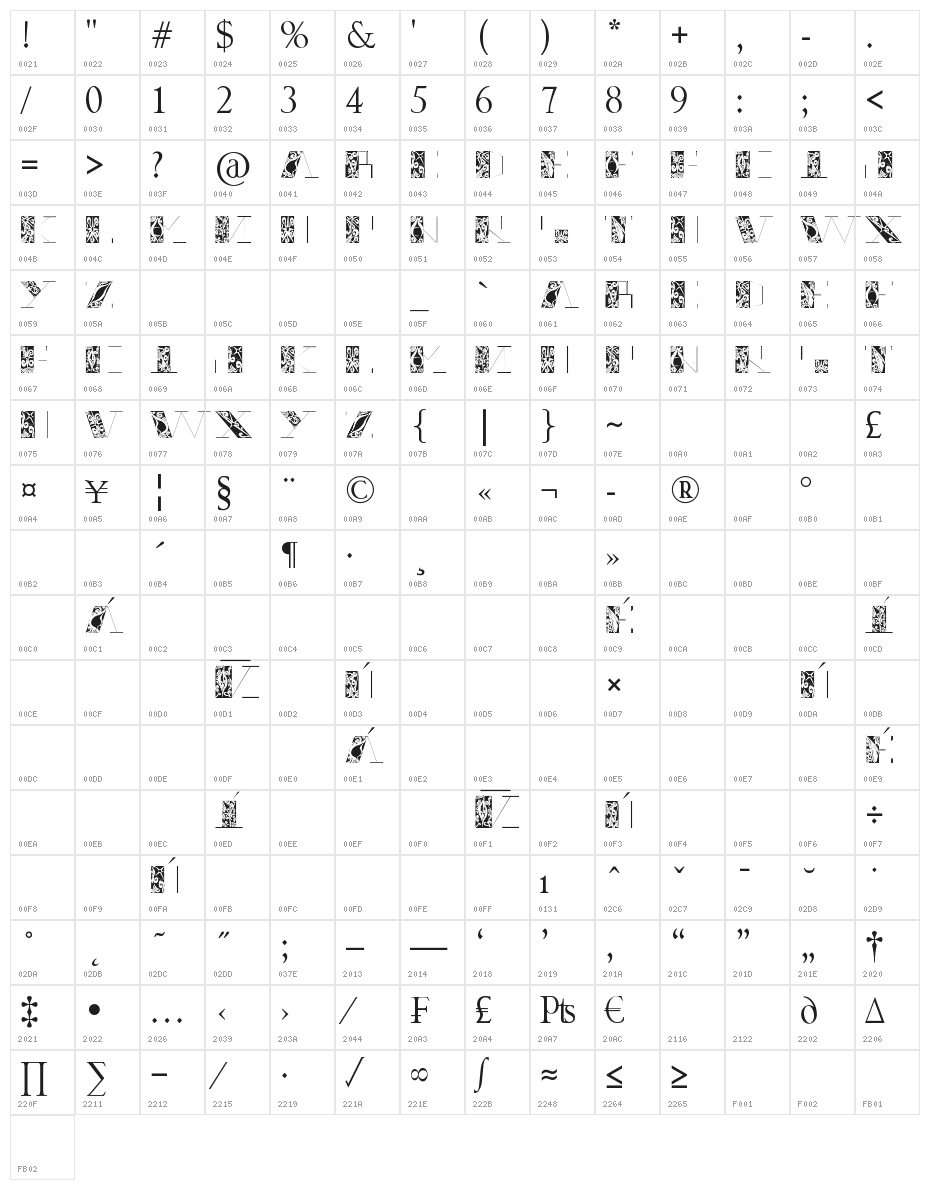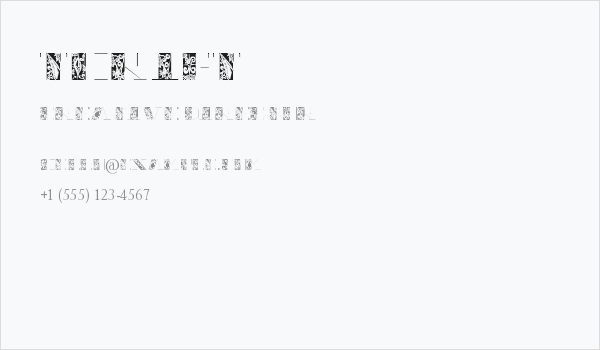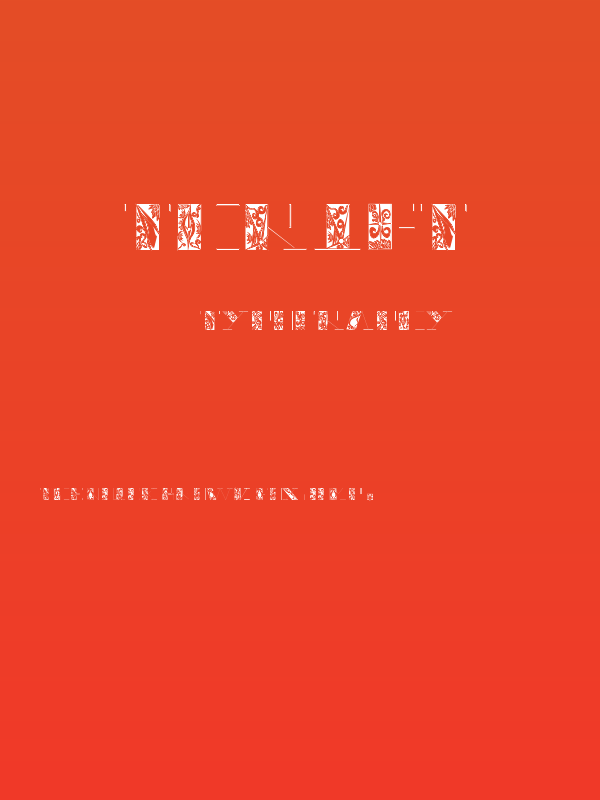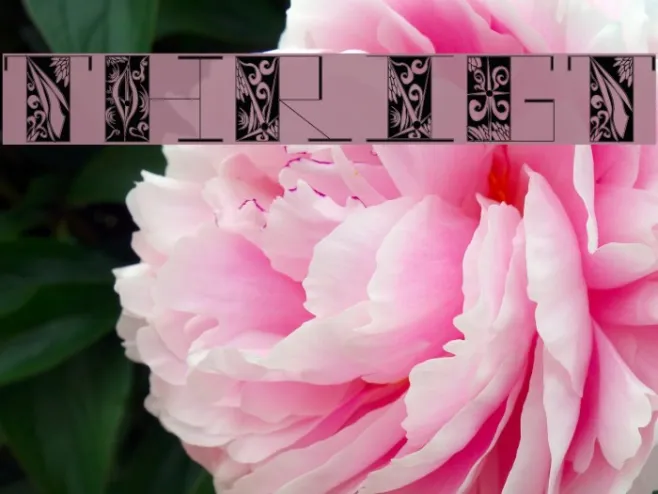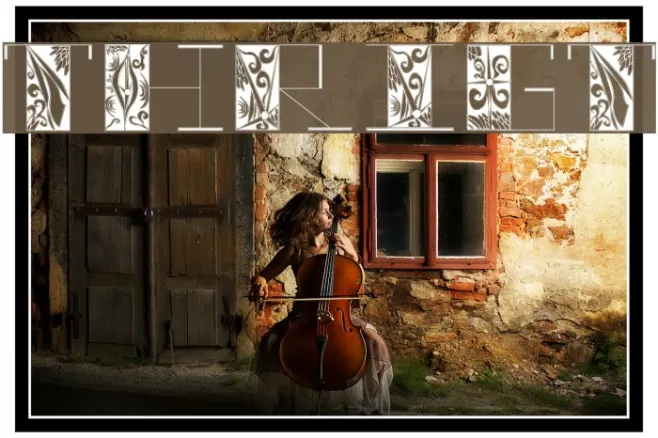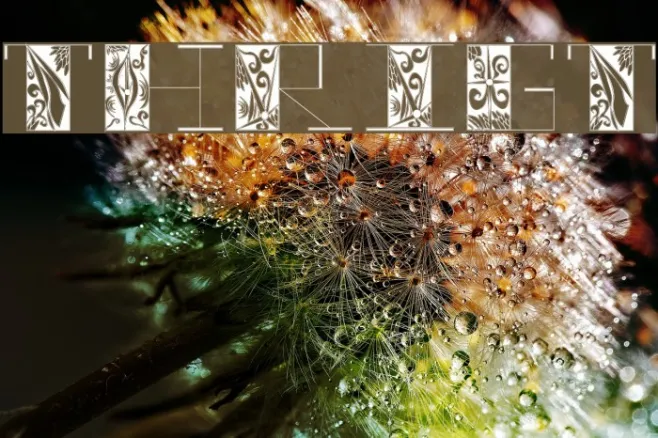
thrigt Font
thrigt Description
This font features a unique and decorative style, combining intricate patterns within the letterforms. The uppercase letters are adorned with elaborate floral and geometric designs, creating a striking visual effect. The lowercase letters maintain a similar aesthetic, ensuring consistency across the typeface. The numerals are bold and clear, contrasting with the ornate letters, making them easily readable. Special characters are included, matching the overall decorative theme. This font is ideal for projects that require a touch of elegance and creativity, such as invitations, posters, or branding materials.
THRIGT UPPERCASE
THRIGT LOWERCASE
THRIGT OTHER CHARS